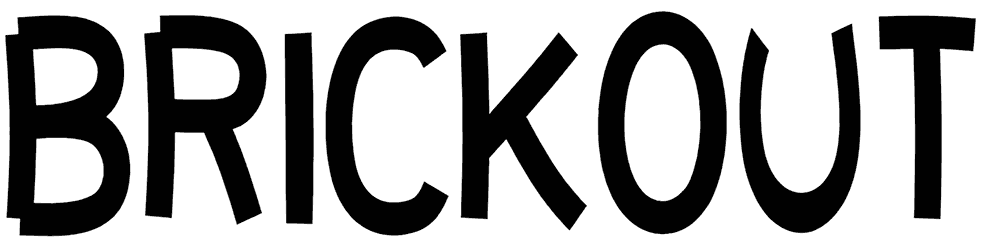
Brickout All Caps Font
Designed byNur Khanifa Subkhi
Brickout All Caps is a fancy all-caps font with whimsical curves and bold lines. It is the perfect choice for anyone looking to add a touch of fun and personality to their designs.
Even though it lacks lowercase letters, it’s still perfect for posters, children’s book covers, logos, and more. For anyone who strives to absorb a playful vibe in the coming undertaking, here on the RB script font store is the best option.